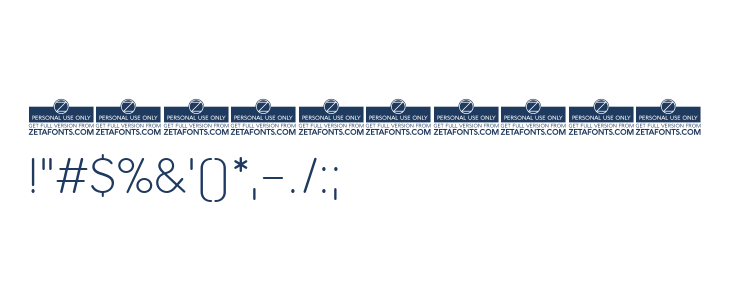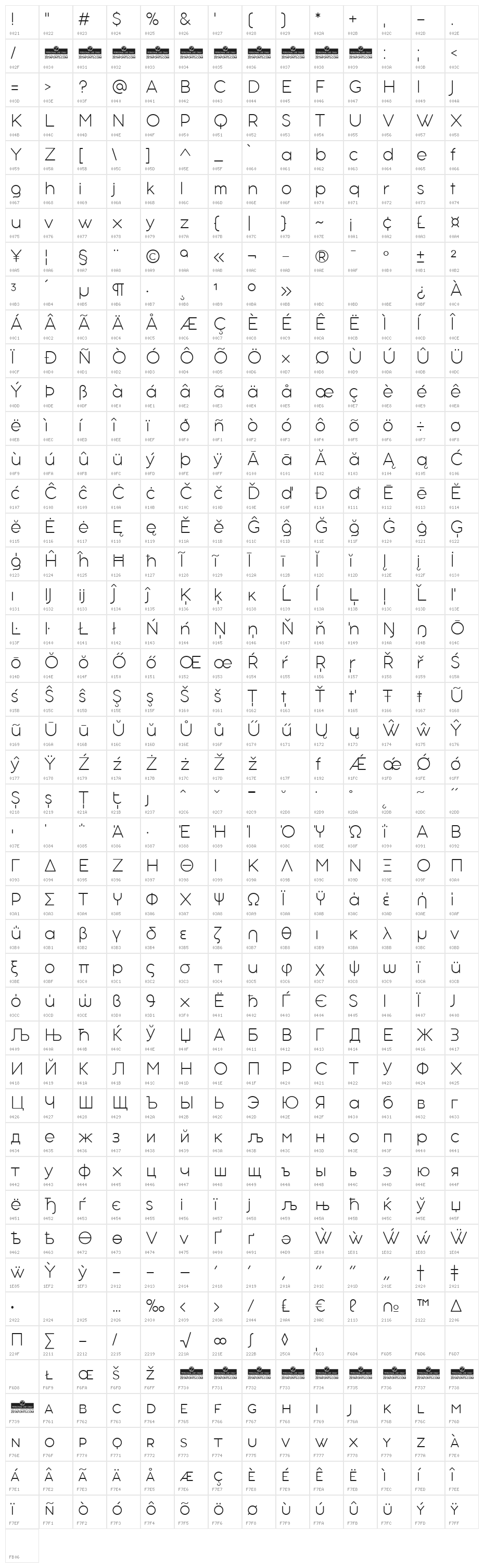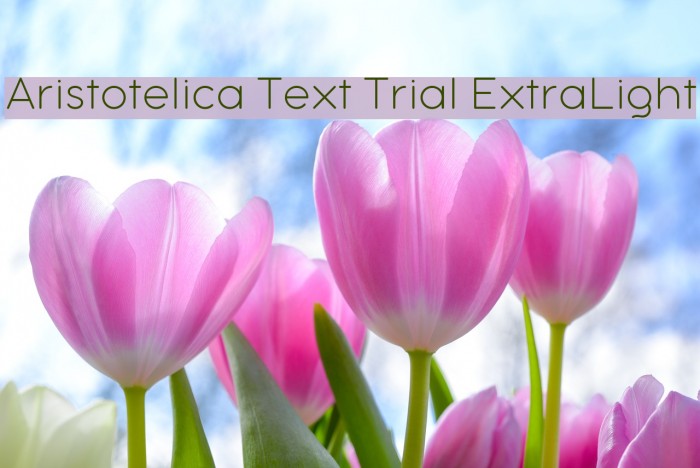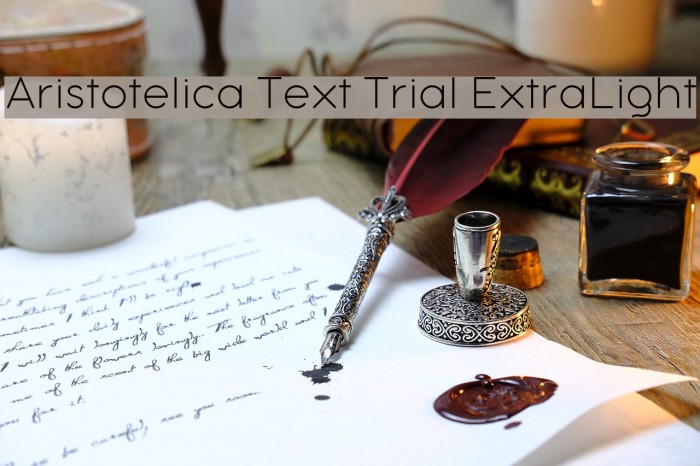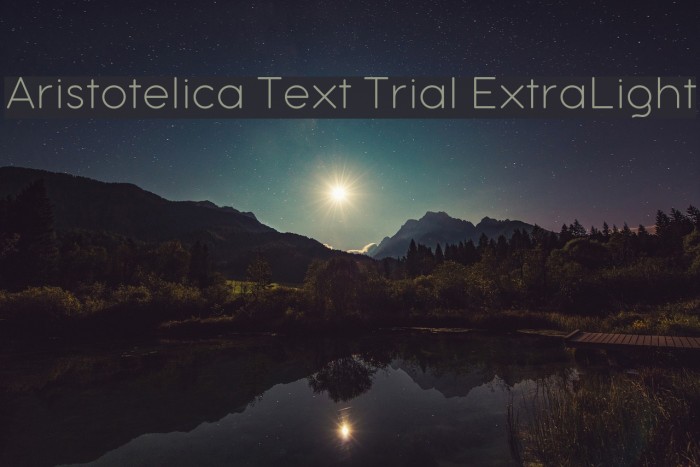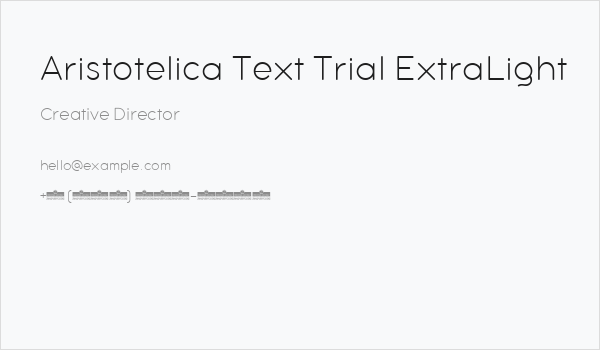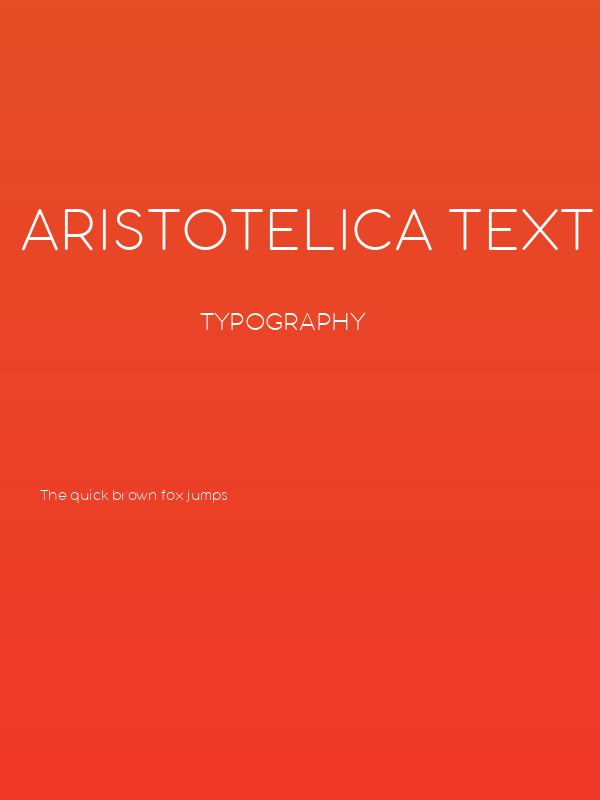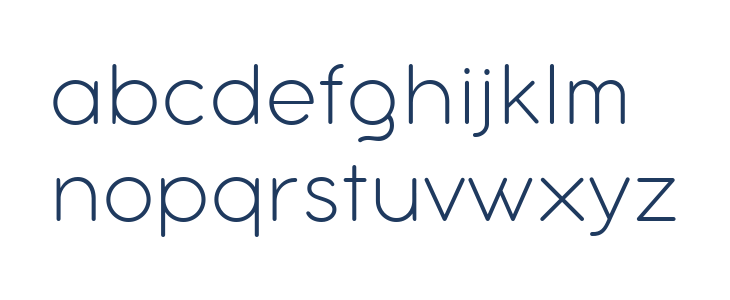
Aristotelica Text Trial ExtraLight Font
Aristotelica Text Trial ExtraLight Description
This font features a clean and minimalist design with a geometric structure. The characters are evenly spaced with a consistent stroke width, giving it a modern and sleek appearance. The uppercase and lowercase letters are well-balanced, with rounded edges that soften the overall look. The numerals and special characters maintain the same geometric style, ensuring uniformity across all glyphs. This font is highly legible, making it suitable for a variety of applications where clarity and simplicity are desired.
| Proposed Projects | Ideal for branding, web design, editorial layouts, and corporate materials where a modern and clean aesthetic is required. |